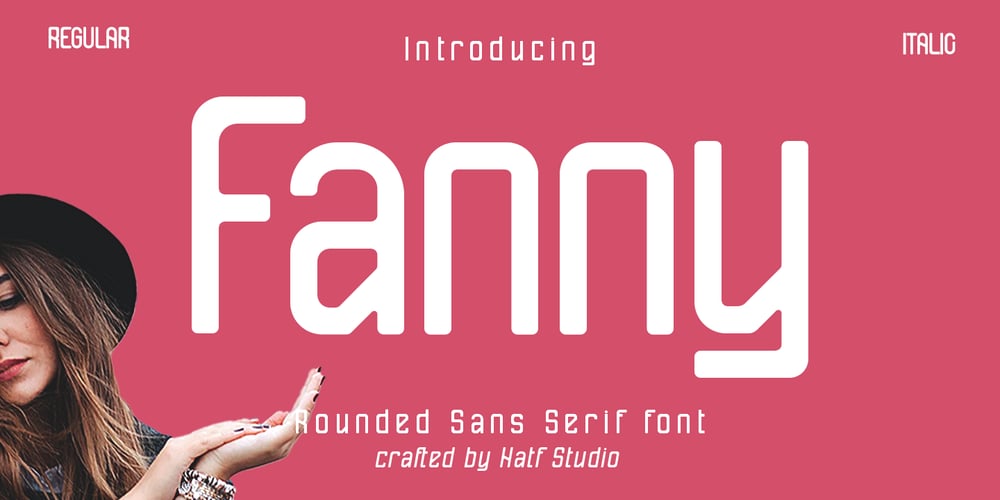
Fanny Font Family was designed by Asep Rendi and published by Hatftype. Fanny contains 2 styles and family package options. Rounded Sans Serif Font is a font with 2 STYLE FONT, perfect for branding projects, logos, wedding designs, media posts, advertisements, product packaging, product designs, labels, photography, watermarks, invitations, stationery, and any project who need handwritten dishes.Features :1. Uppercase & Lowercase2. Multilingual support3. Number4. Symbol5. Punctuation6. Support in Mac and Windows OS -Support in design application (photoshop, illustrator, and more)I really hope you enjoy it.